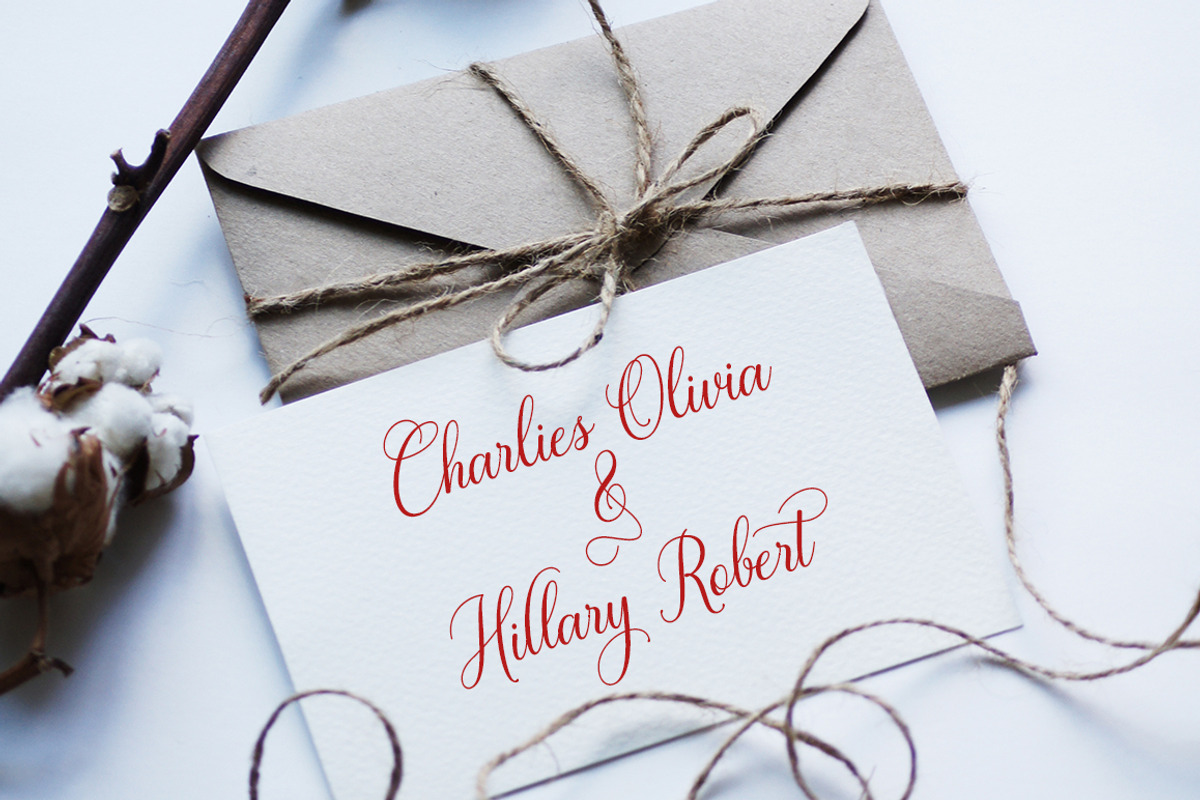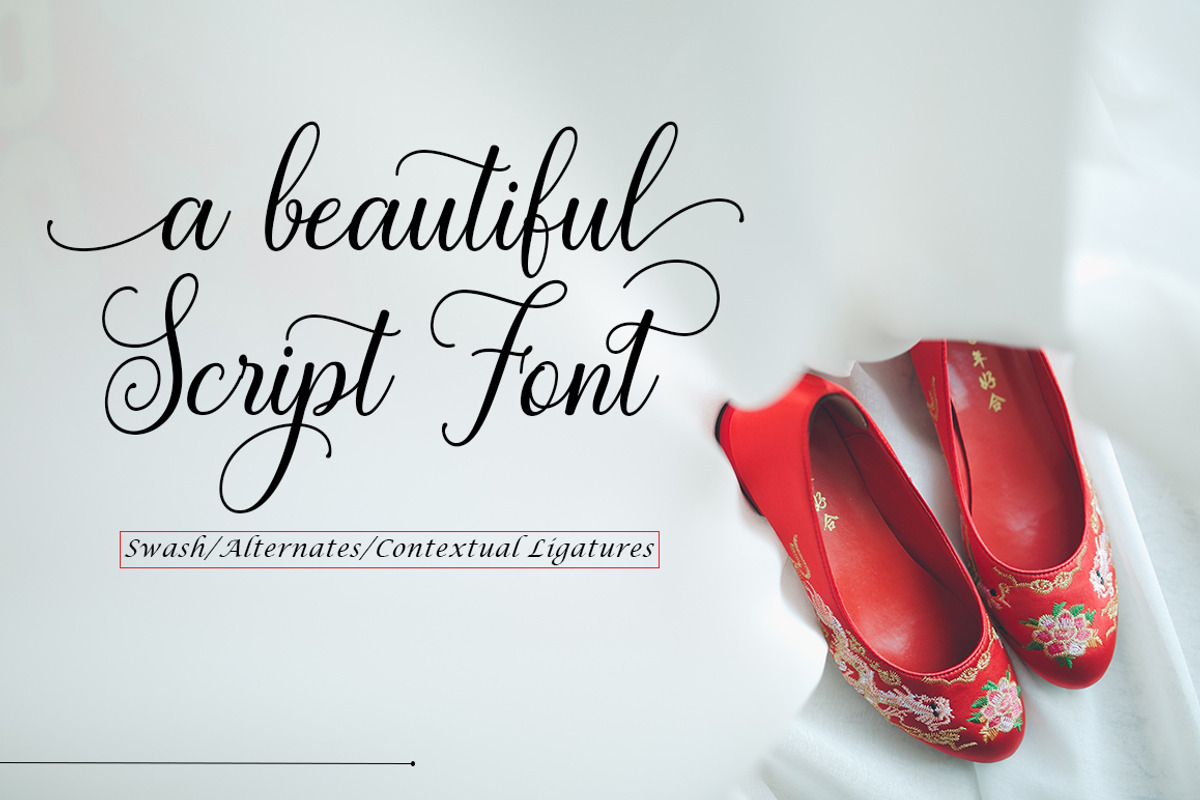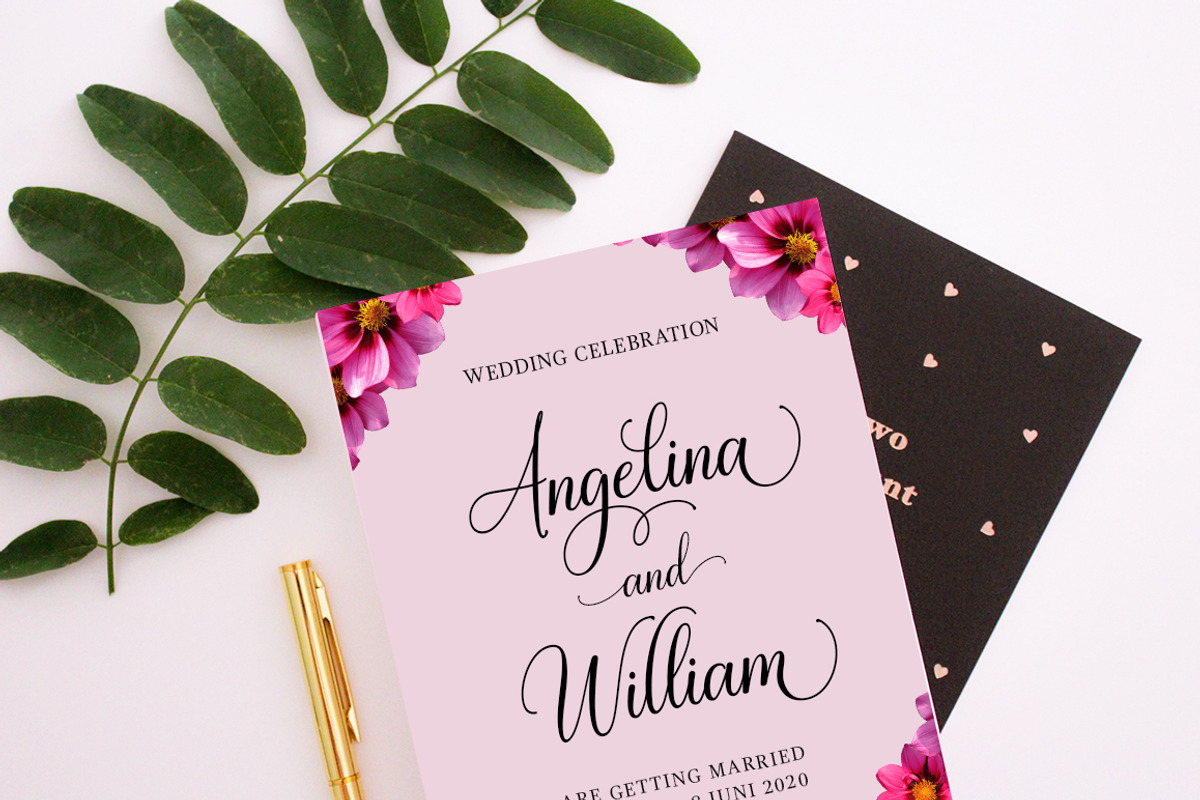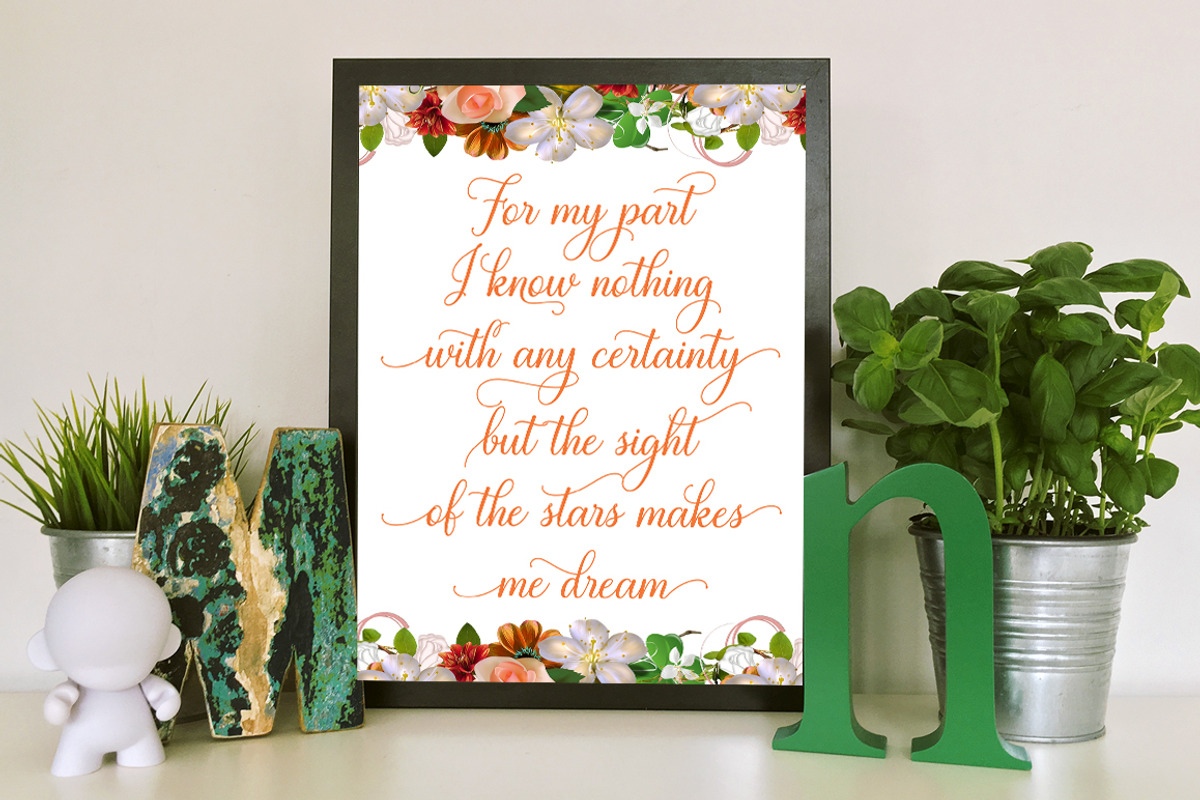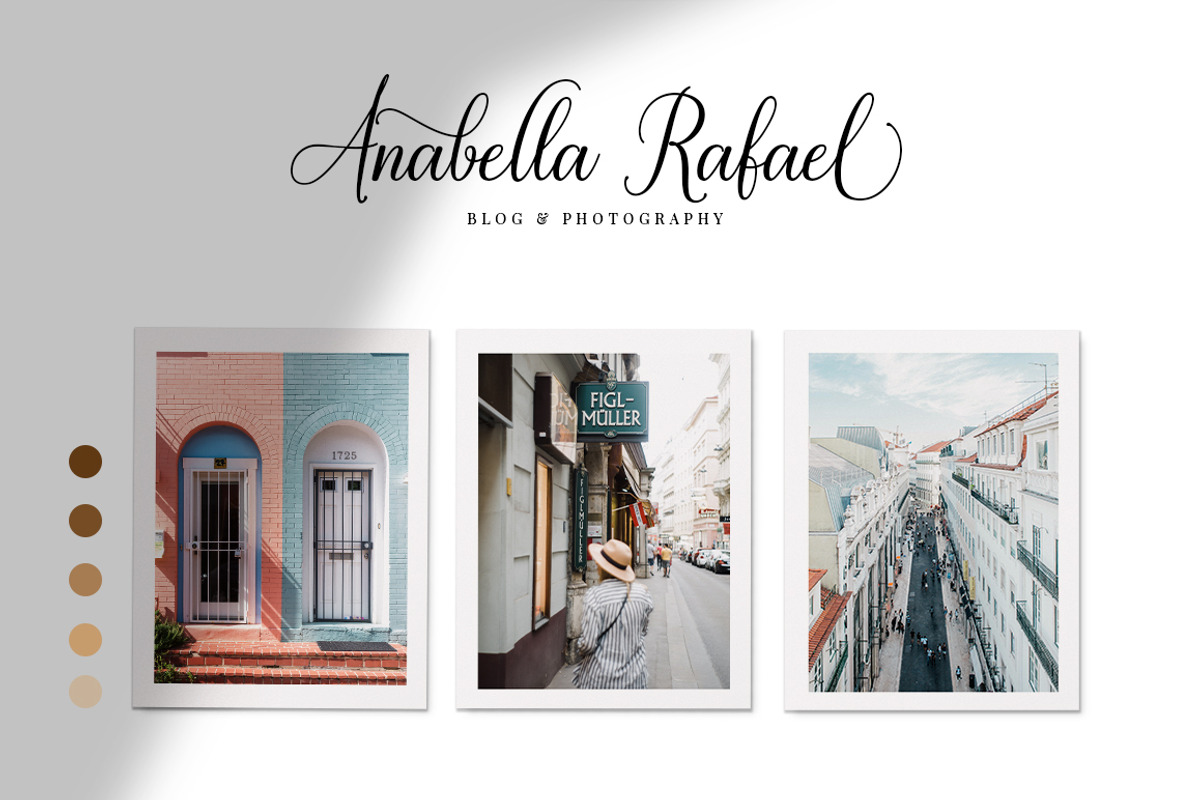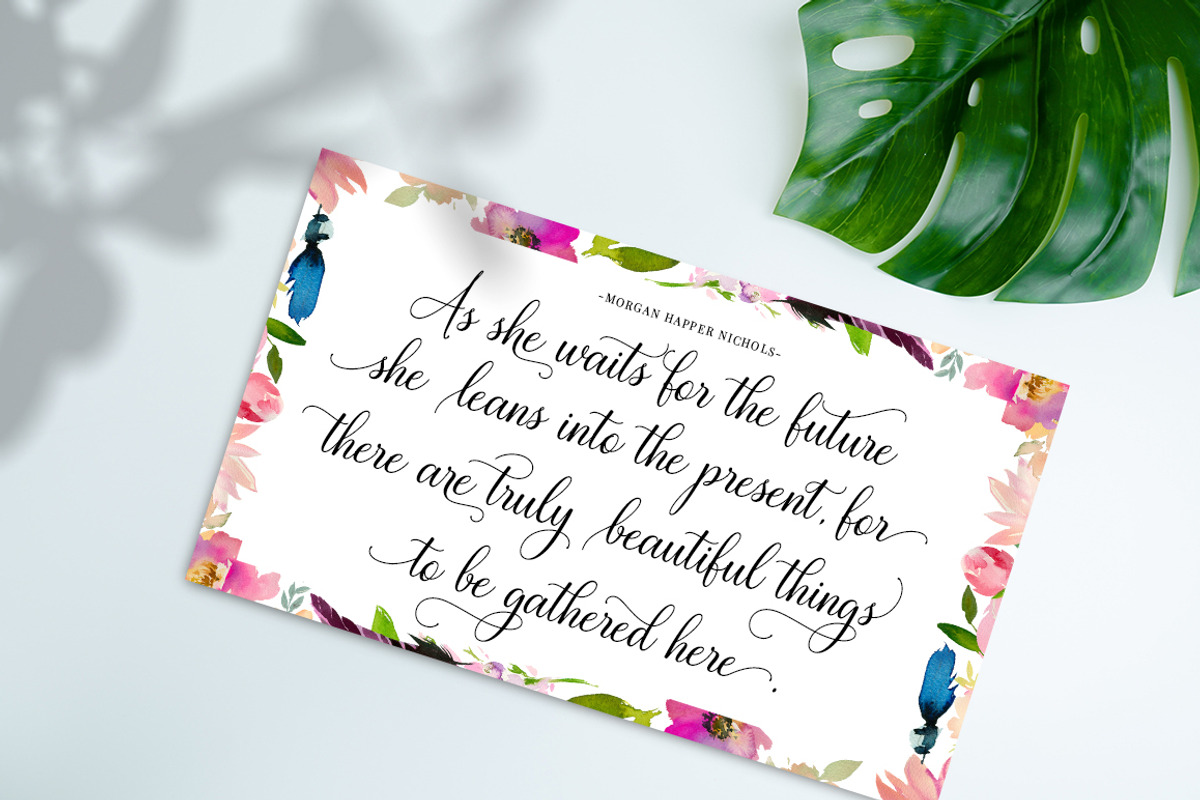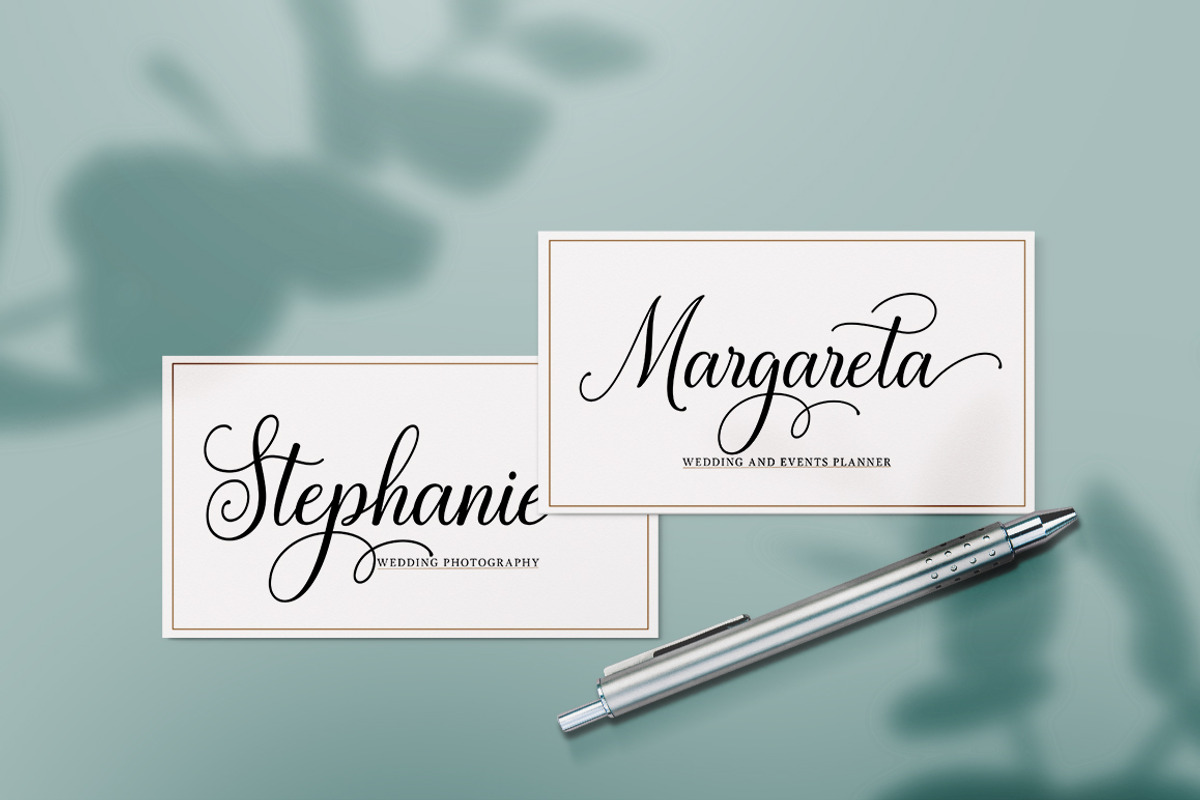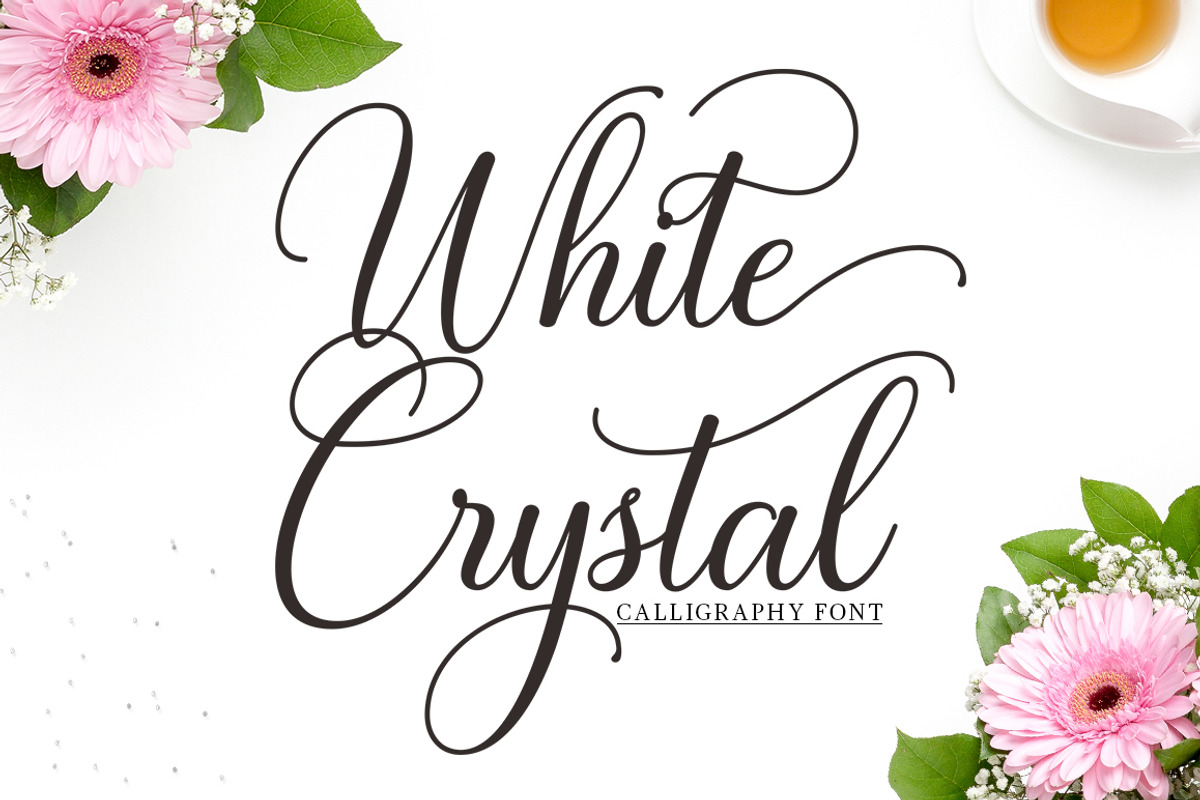
White Crystal
Hello Font Lovers, I want to introduce my latest font that is ” White Crystal Script”.White Crystal is a modern calligraphy font that features a varying baseline, smooth line, classic and elegant touch. Can be used for various purposes.such as headings, signature, logos, wedding invitation, t-shirt, letterhead, signage, lable, news, posters, badges etc.
White Cristal features 320+ glyphs and 146 alternate characters. including initial and terminal letters, alternates, ligatures and multiple language support.